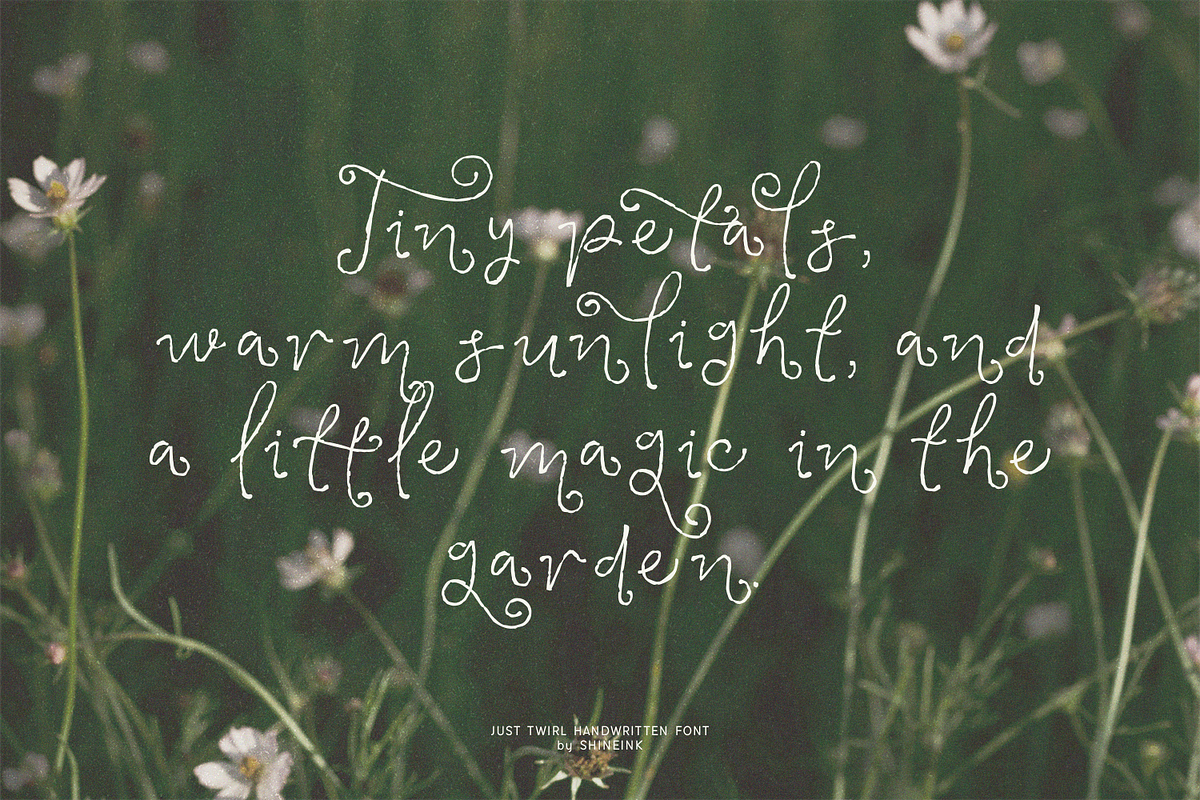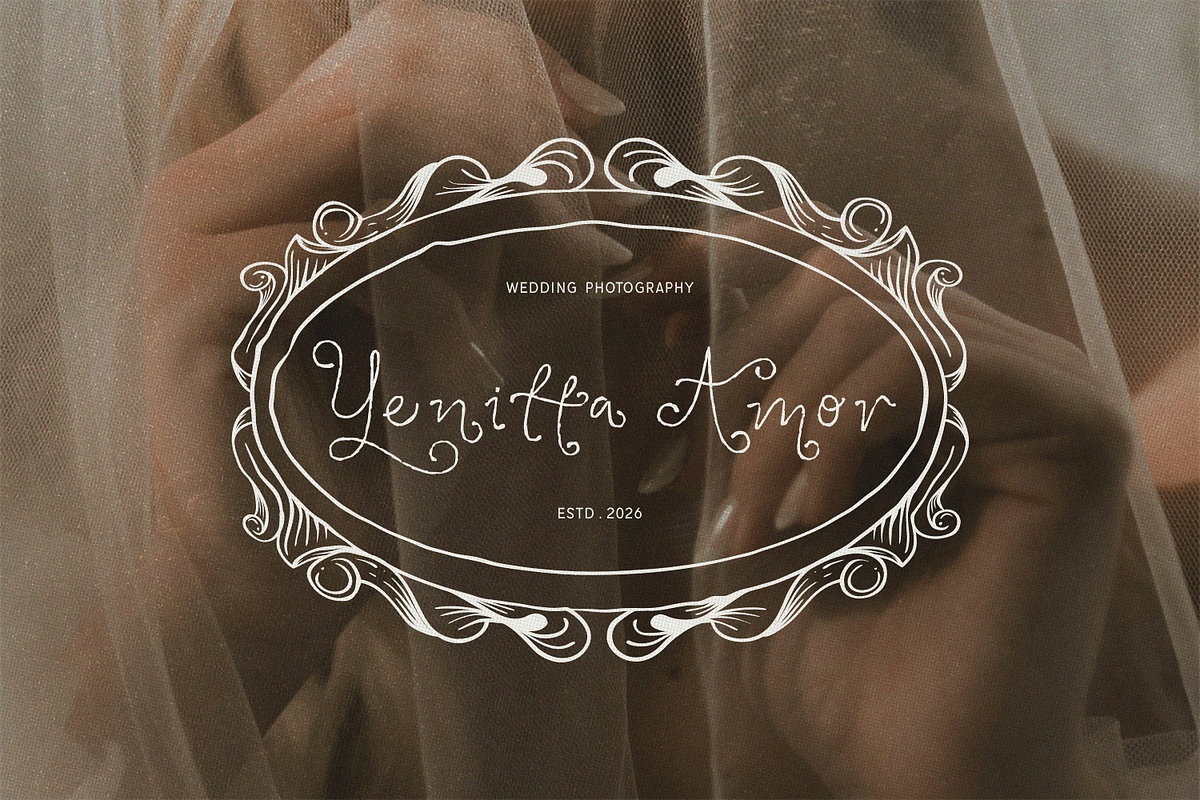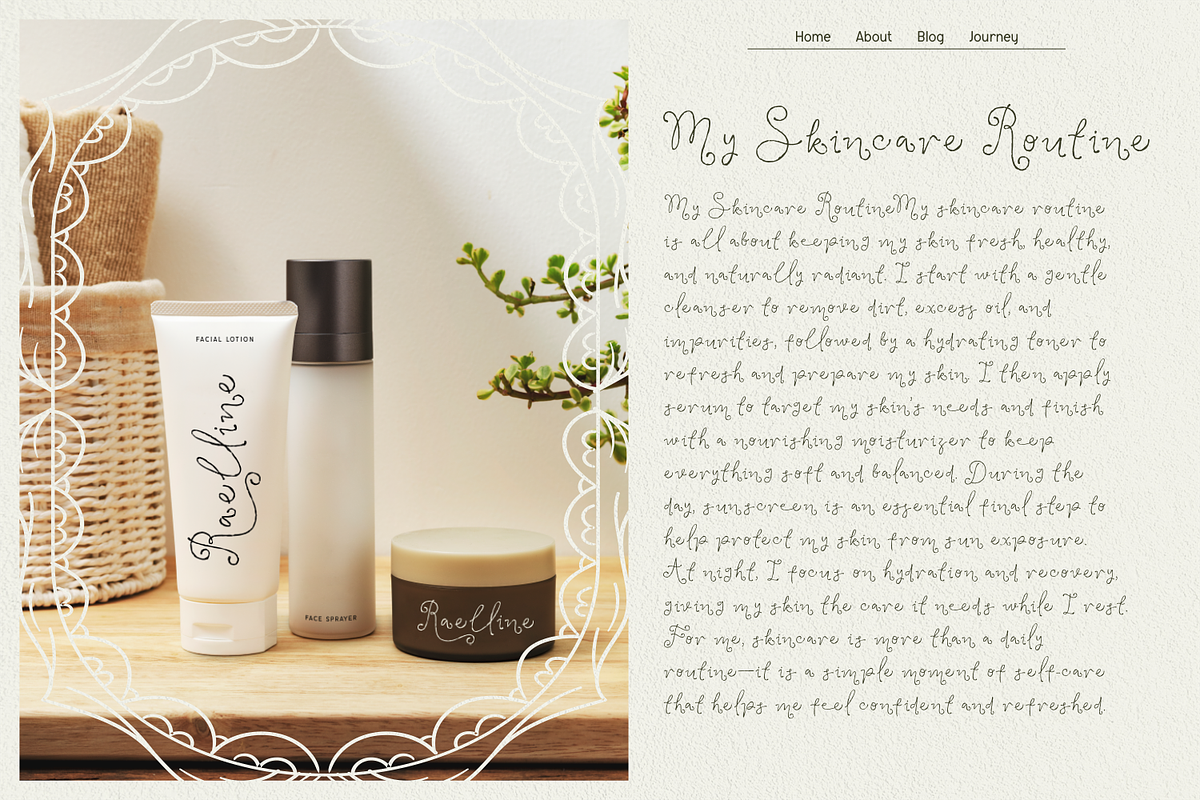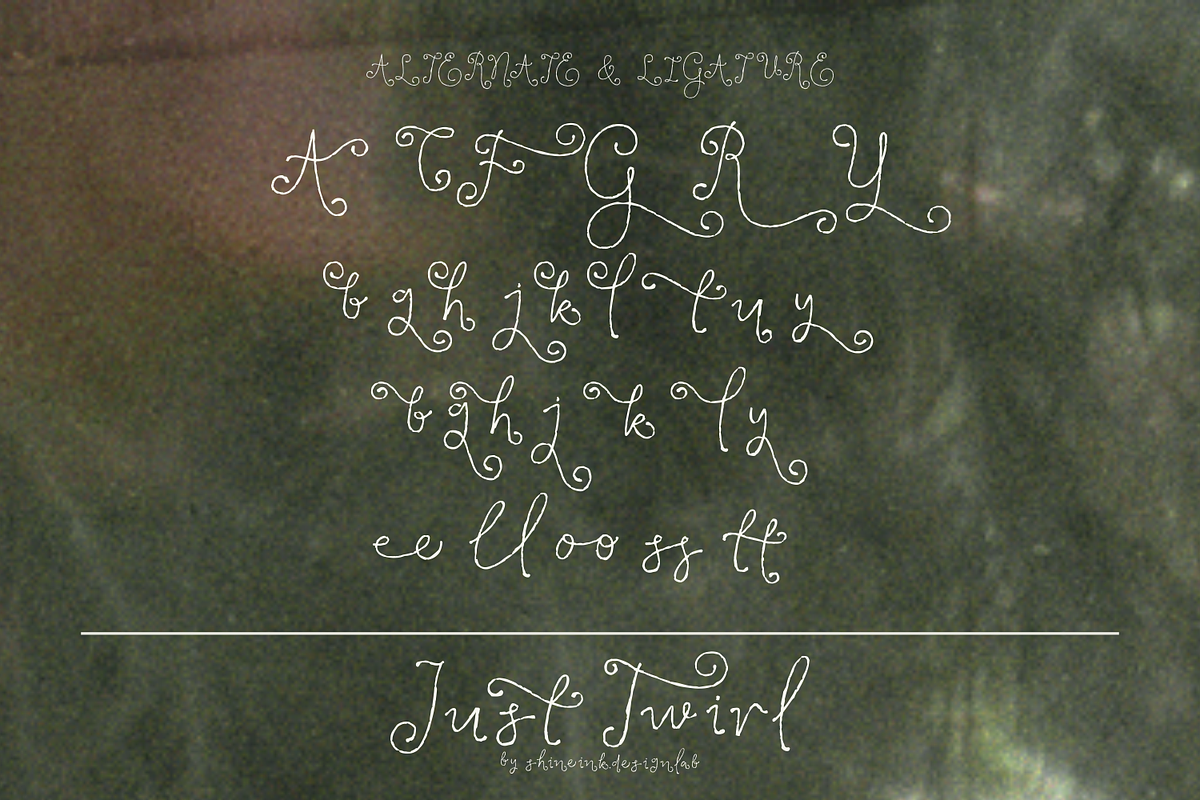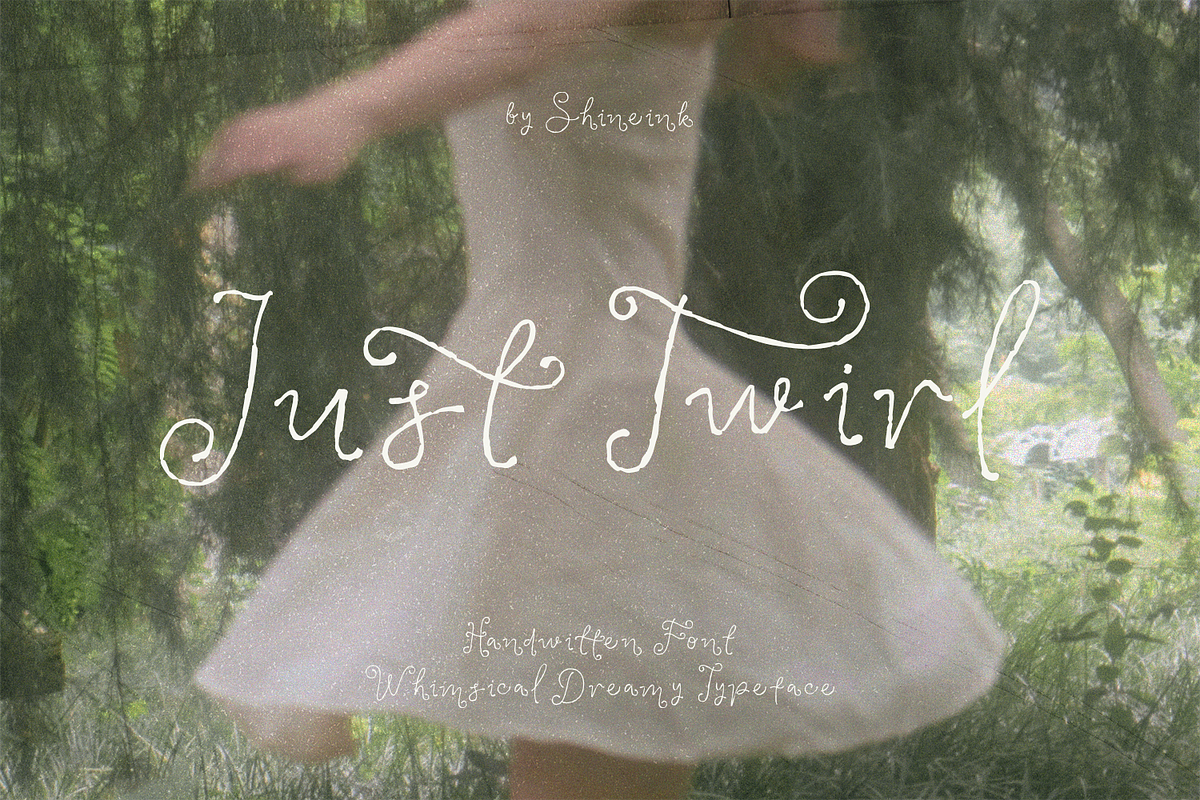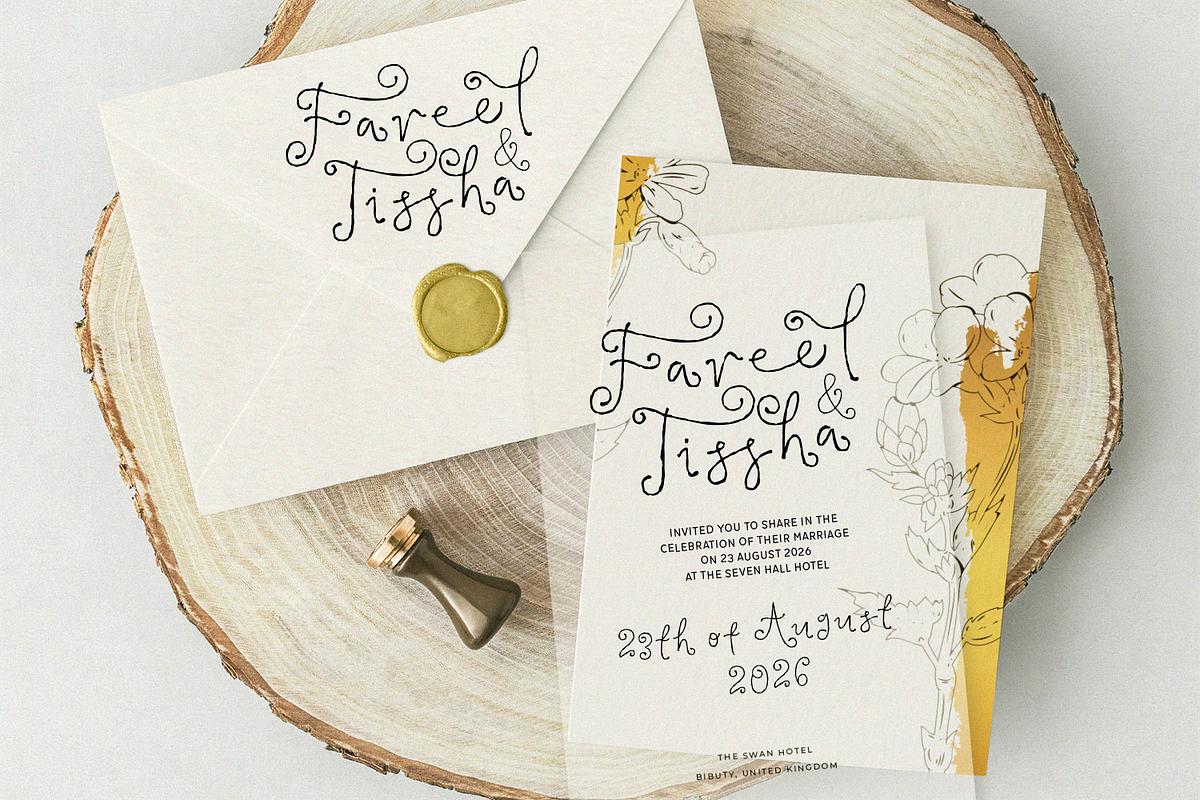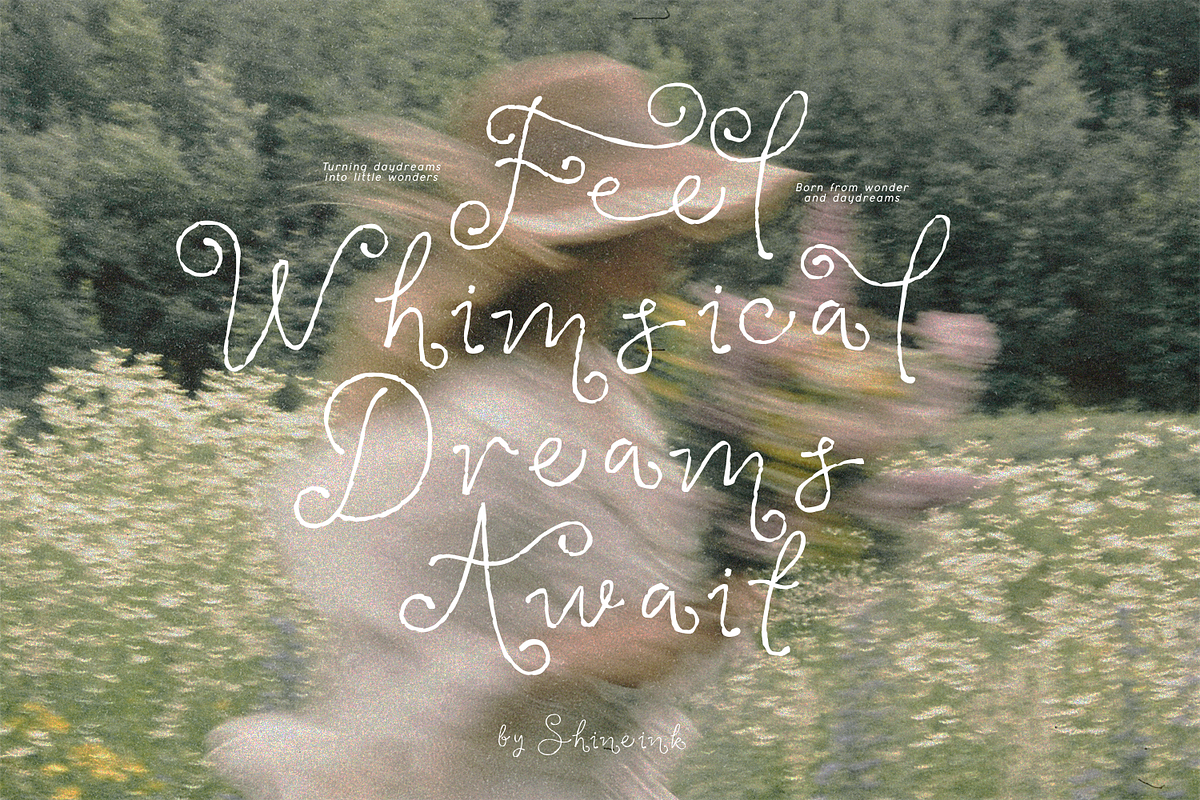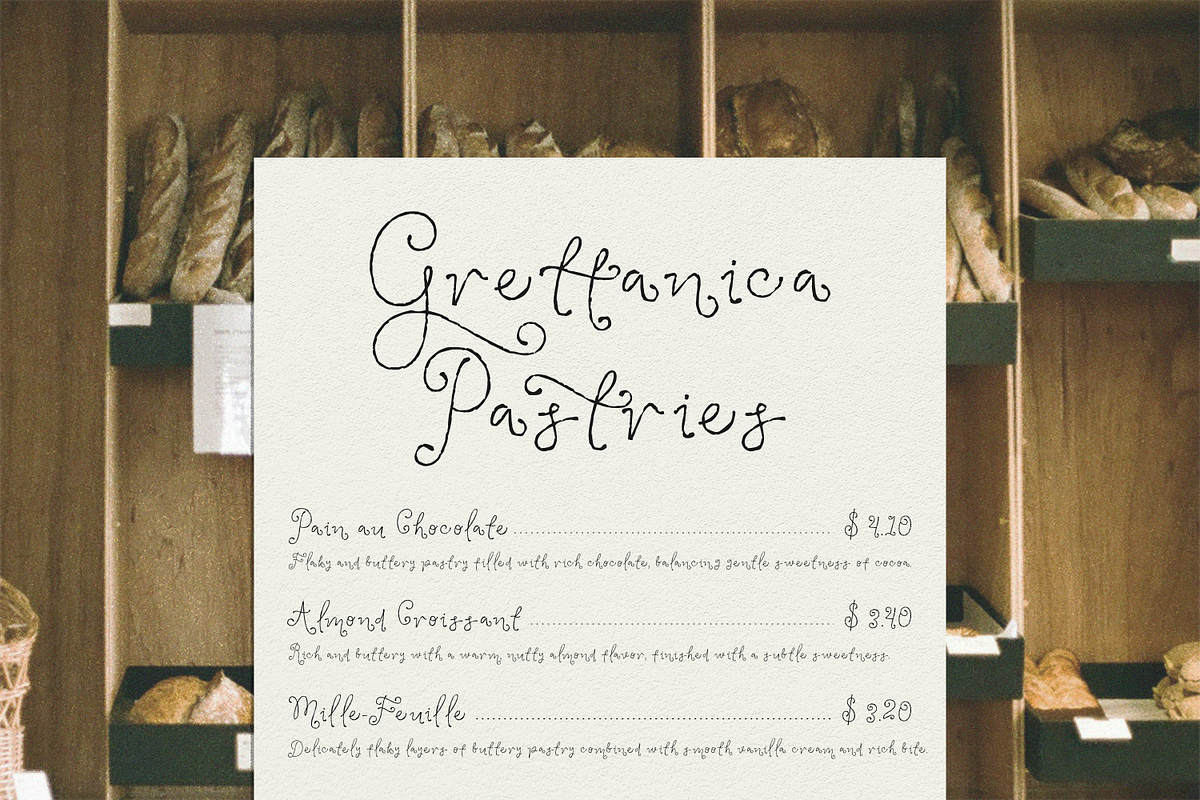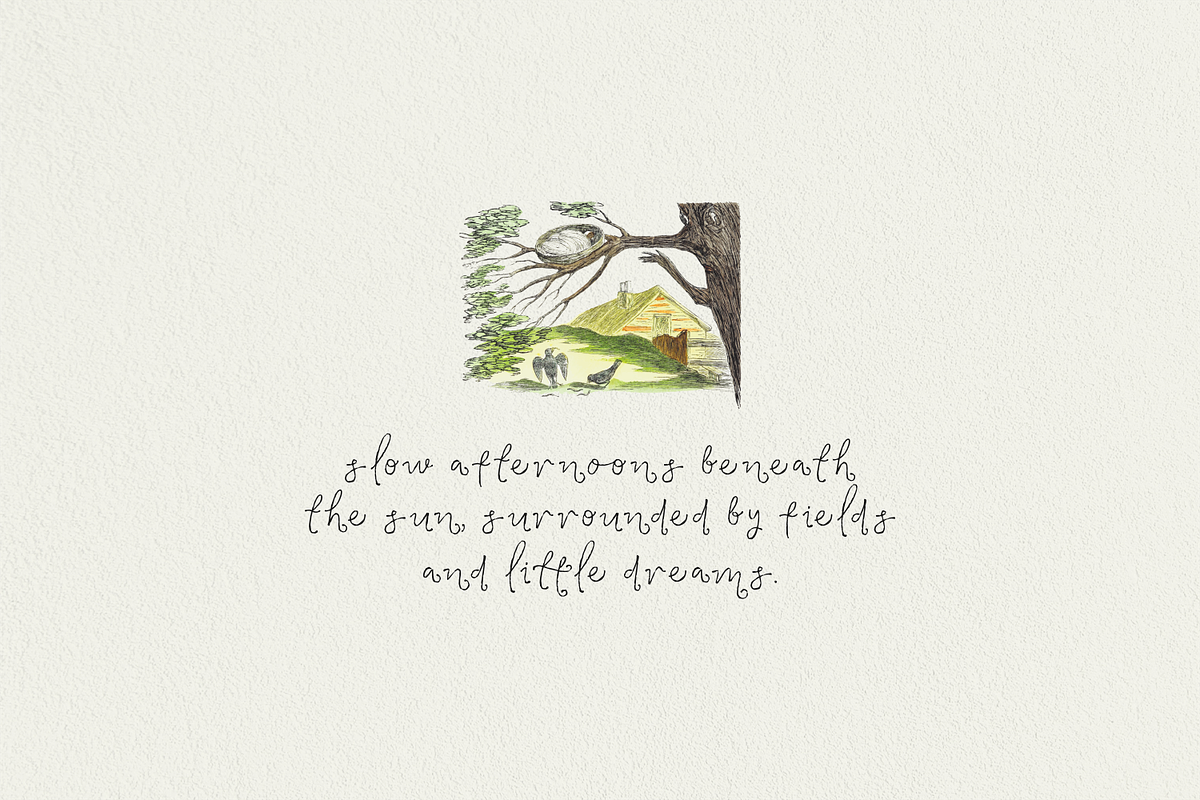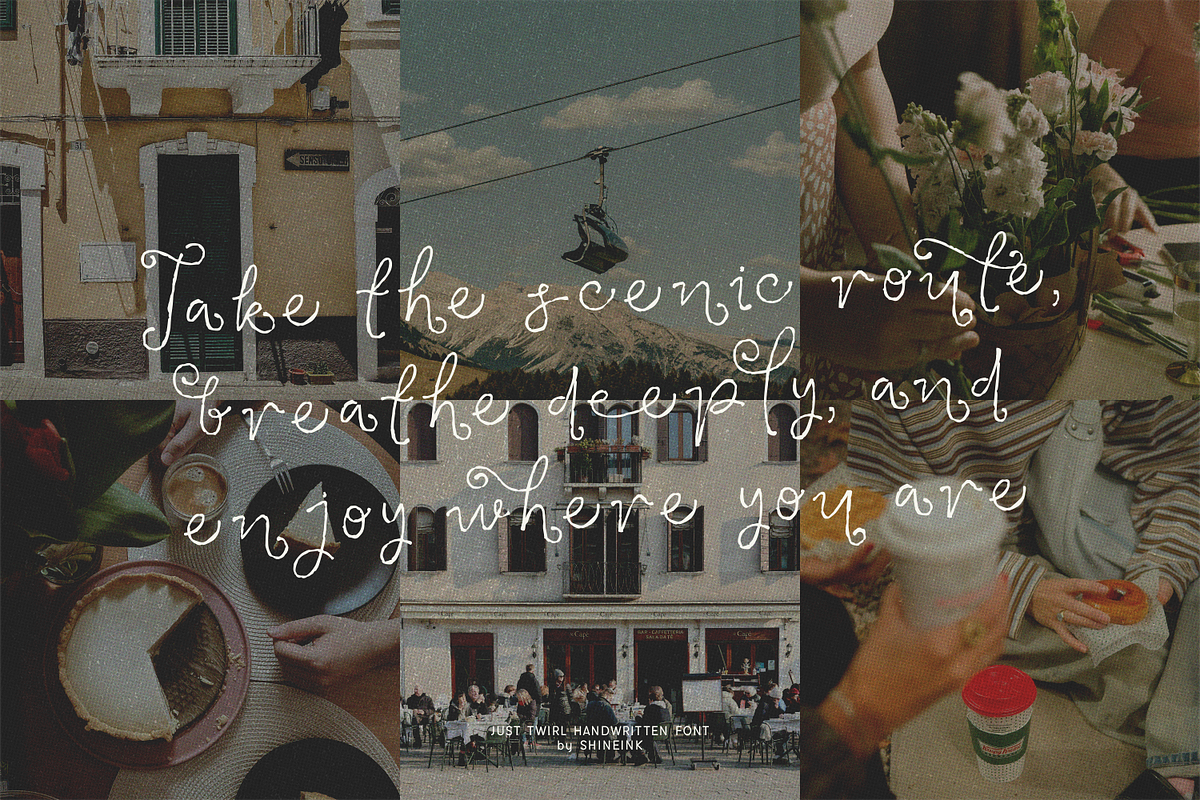
Just Twirl – Whimsical Handwritten
Just Twirl is a dreamy handwritten script filled with elegant swirls, playful curls, and naturally imperfect strokes. Inspired by magical garden afternoons, blooming wildflowers, and nostalgic fairytale moments, this typeface brings warmth, romance, and graceful personality into every design.
With its flowing ornamental details and handcrafted rhythm, Just Twirl is perfect for creating designs that feel feminine, whimsical, and beautifully timeless. Whether you're designing wedding stationery, boutique branding, luxury packaging, greeting cards, beauty products, book covers, or lifestyle content, every letter adds a poetic touch to your story.
Lowercase and Uppercase
Accented characters
Multiple Languages Supported
Unique Alternate, Ligature